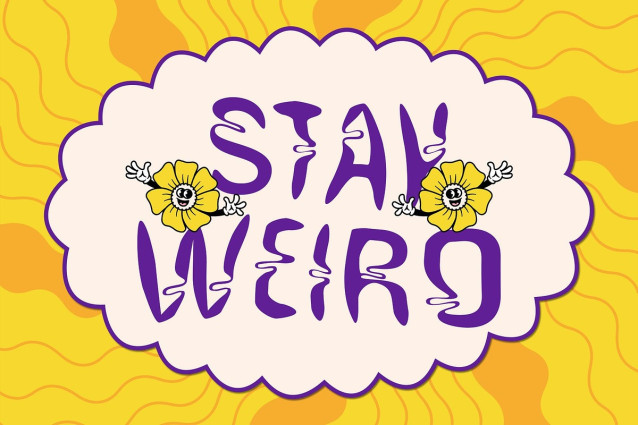
CS Hodge Drawn Font
CS Hodge Drawn Font is a modern display font that channels the spirit of psychedelic design with a clean, contemporary twist. Its letterforms ripple with energy—featuring warped shapes, unexpected curves, and rhythmic distortions that evoke visual motion and surreal depth.
Hand-Drawn with an Artistic Soul The defining feature of this energetic font is its expressive drawn effect. Each glyph appears as if it were outlined by hand, lending the typeface a unique, personal texture. This handcrafted detail enhances its organic and artistic appeal, giving the font a raw, emotional resonance that feels alive and full of character.
Psychedelia Meets Modern Design Blending the fluid unpredictability of psychedelic visuals with the structure of modern typography, this creative font is a rare hybrid of freedom and form. It’s experimental without being chaotic, vibrant without being loud—making it a perfect choice for designers seeking to make a strong yet stylish impact.
Ideal for Projects That Break the Mold From concert posters and album art to zines and gallery visuals, this handcrafted and expressive font thrives in contexts where creativity is the focus. Its bold personality encourages designers to push boundaries and explore bold typographic expression. It’s not just a font—it’s an invitation to break the rules and embrace visual experimentation.